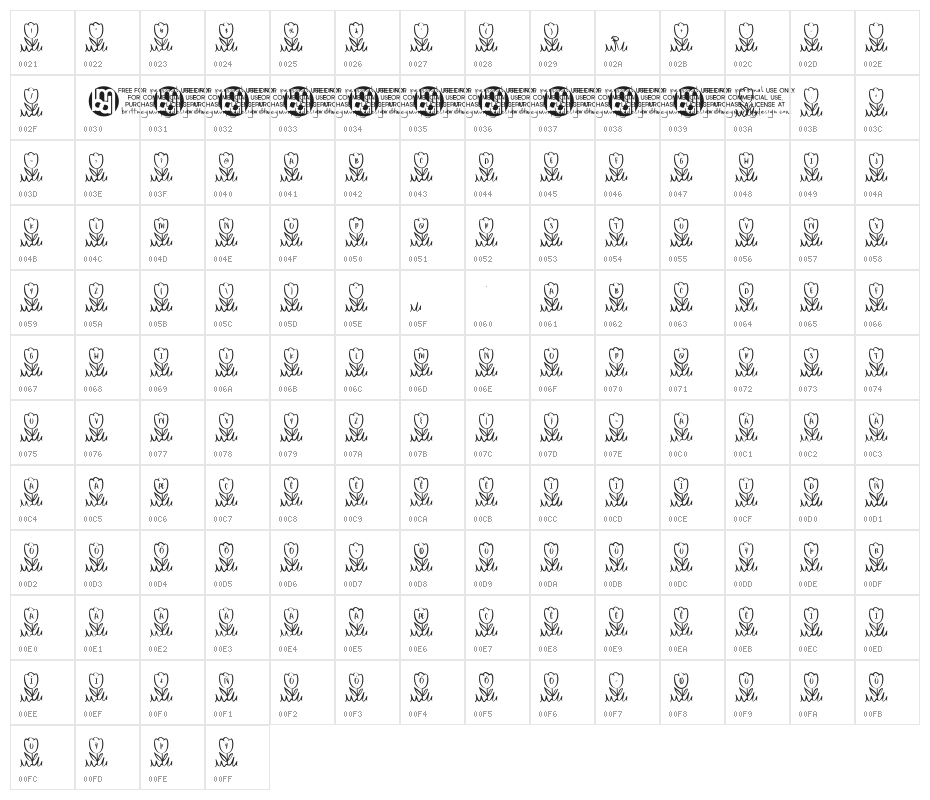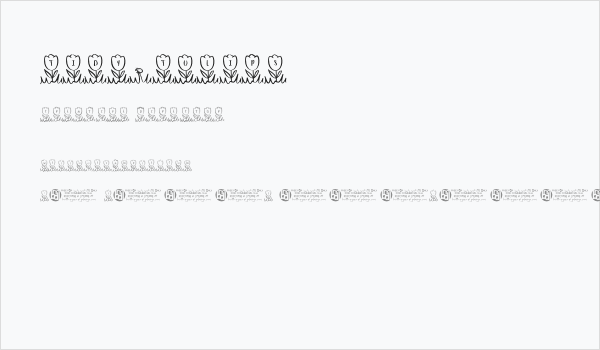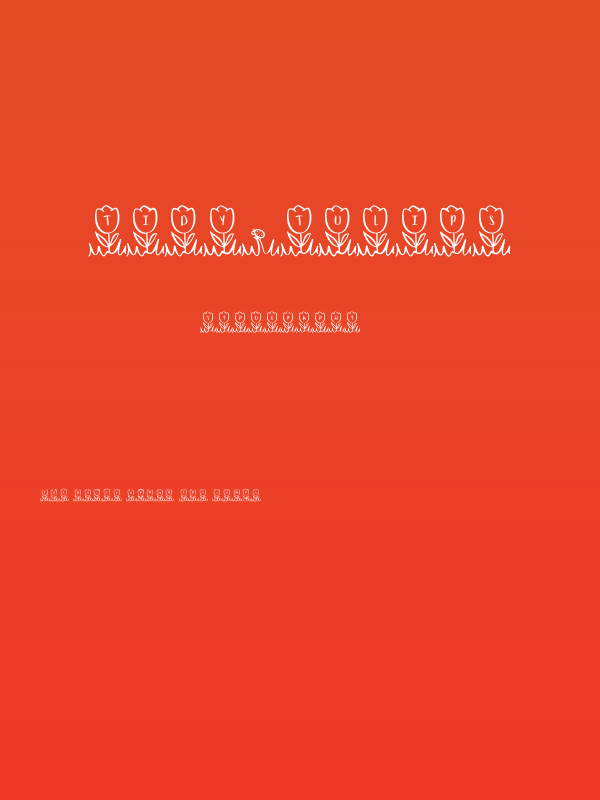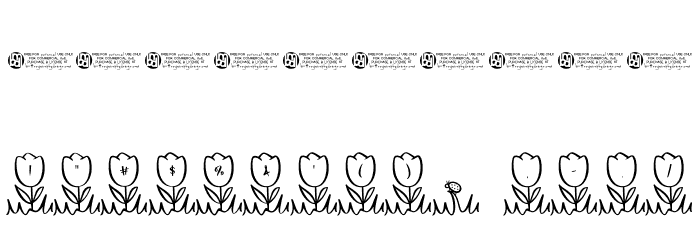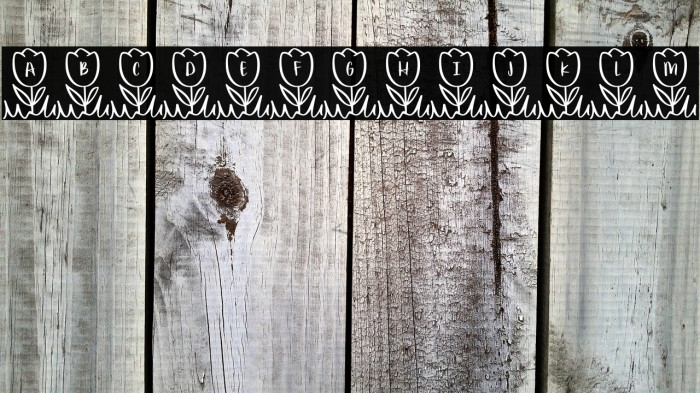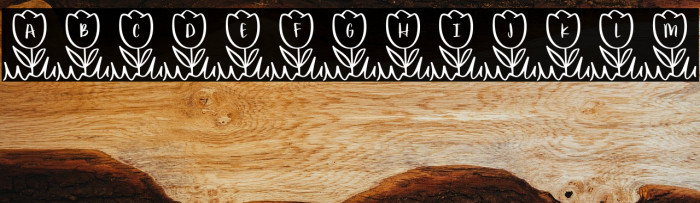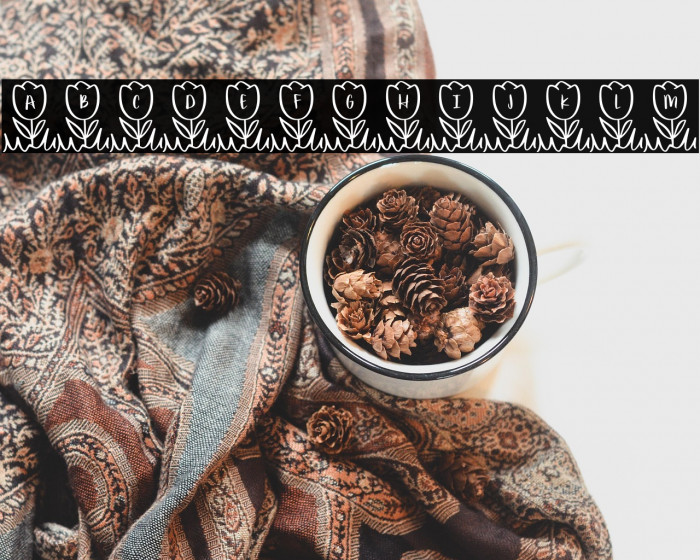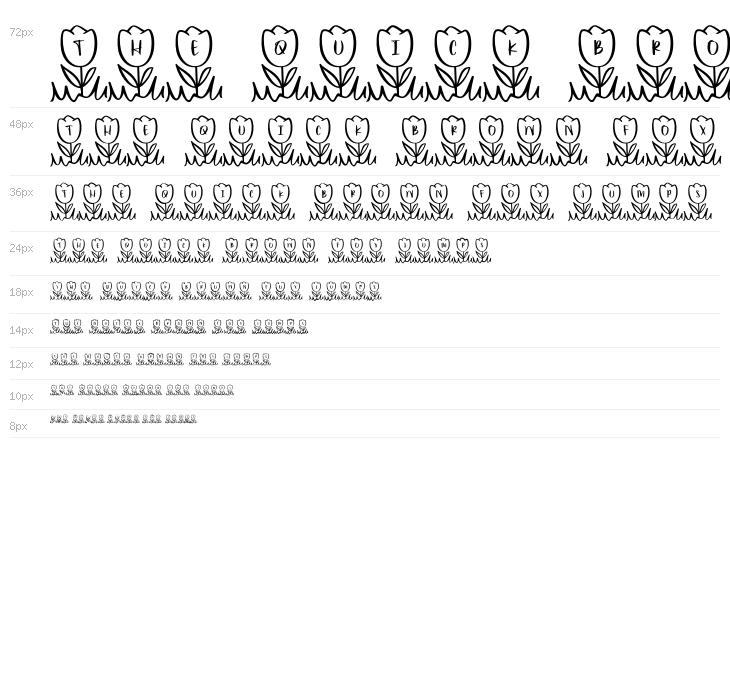
Tidy*Tulips Font
Tidy*Tulips Description
This whimsical font features each letter encapsulated within a tulip shape, giving it a playful and decorative appearance. The letters are uppercase and lowercase, with numbers and a selection of special characters, all consistently styled within the floral motif. The design incorporates a hand-drawn aesthetic, with each tulip stem and leaf adding to the organic feel. This font is perfect for projects that require a touch of nature or a playful theme, such as children's books, greeting cards, or spring-themed events. Its unique style makes it stand out, while the consistent tulip design ensures readability.
| Use Case | Headlines, Decorative text |
| Proposed Projects | Ideal for children's books, greeting cards, spring-themed events, and decorative posters. |